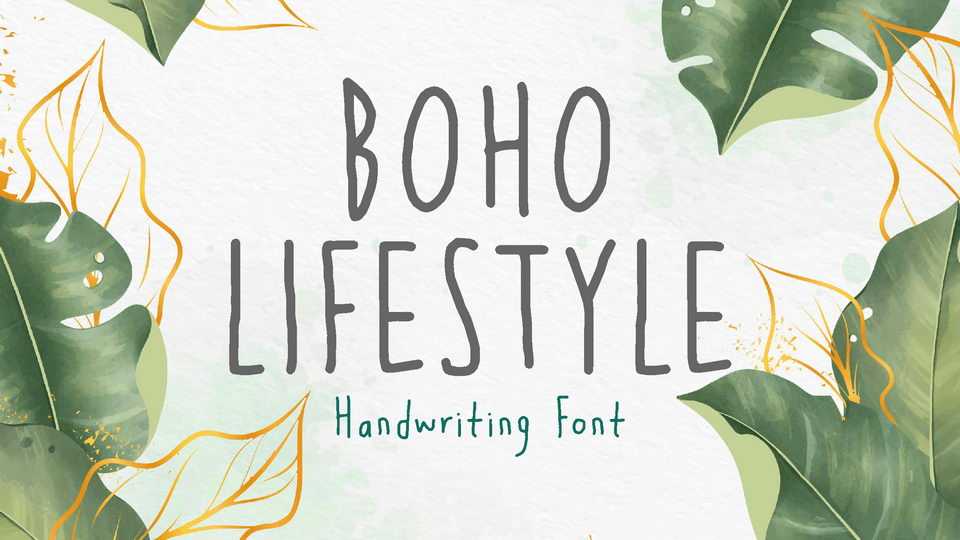
Download Boho Lifestyle font, a handwritten typeface that bring a bohemian feel, and retro touch on everything it touch. Suit perfectly for instagram post, instagram story, boho and scandi interior poster and more.